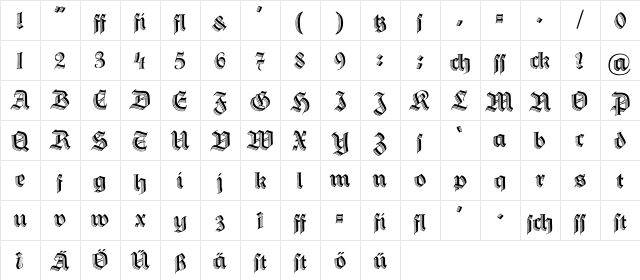
Hermann-Gotisch Regular
| Designer | Dieter Steffmann |
| Copyright | Copyright (c) Typographer Mediengestaltung, 2002. All rights reserved. Hermann-Gotisch geschaffen von Herbert Thannhaeuser, 1934. Digitalisiert durch Dieter Steffmann. Kreuztal. |
Design Context for Hermann-Gotisch Typeface
Hermann-Gotisch is a composed and adaptable typeface that performs quietly and consistently across a wide range of design contexts.